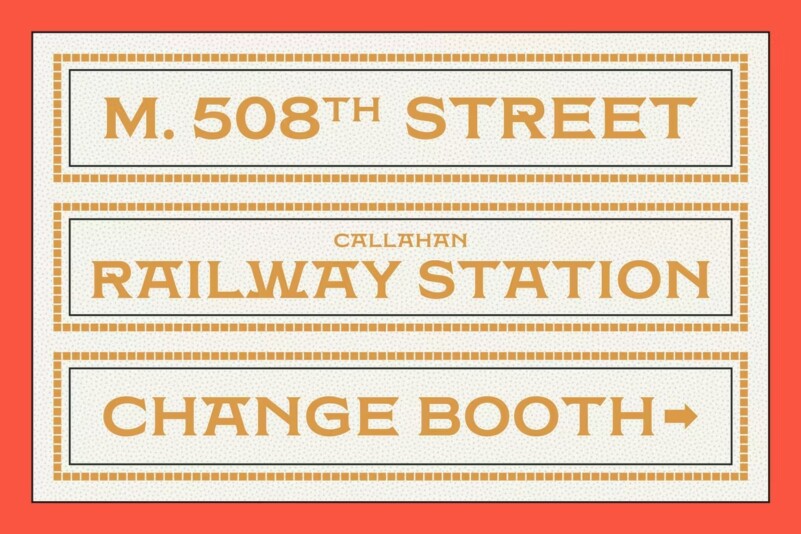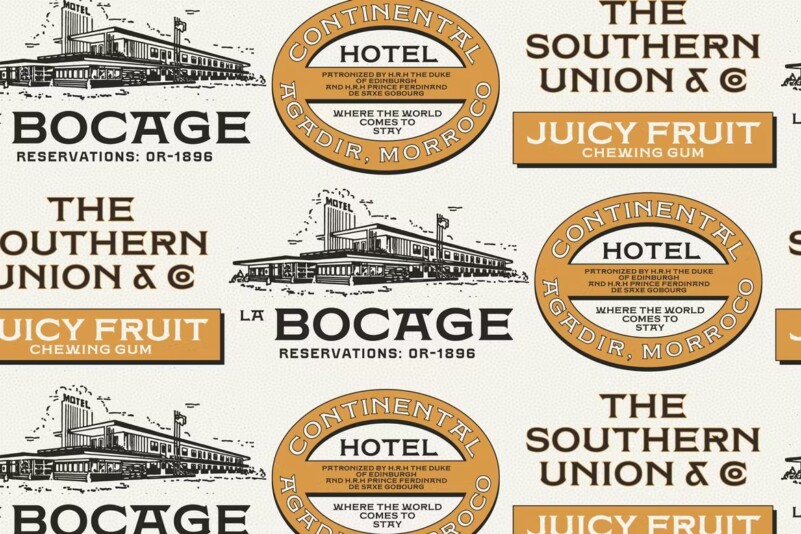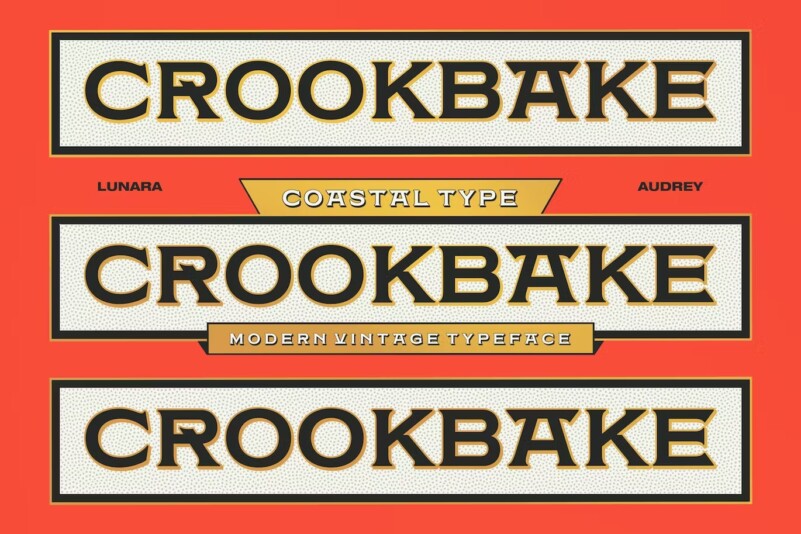
Crookbake font
Crookbake_ is a typeface primarily inspired by the historic mosaic marquees found in the Subway . It has an authentic vintage vibe and works great for packaging, lettering, invitations, covers, and other types of display design projects.